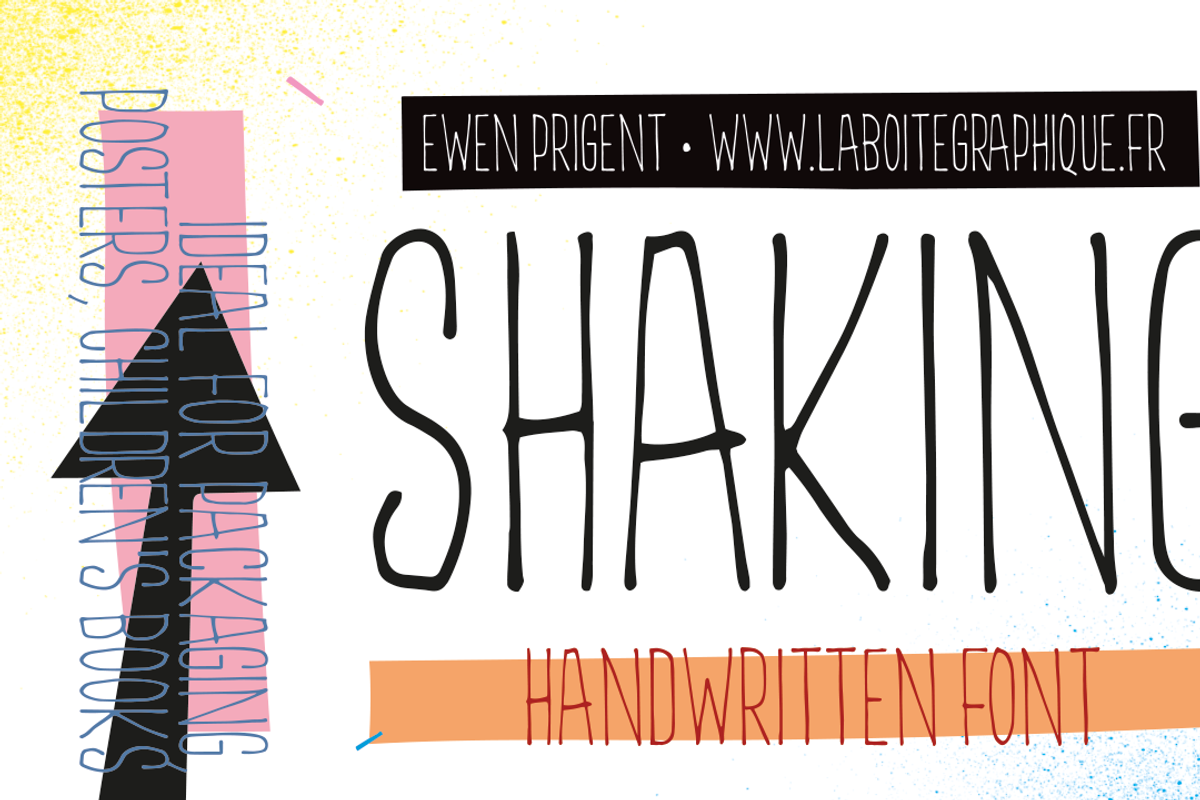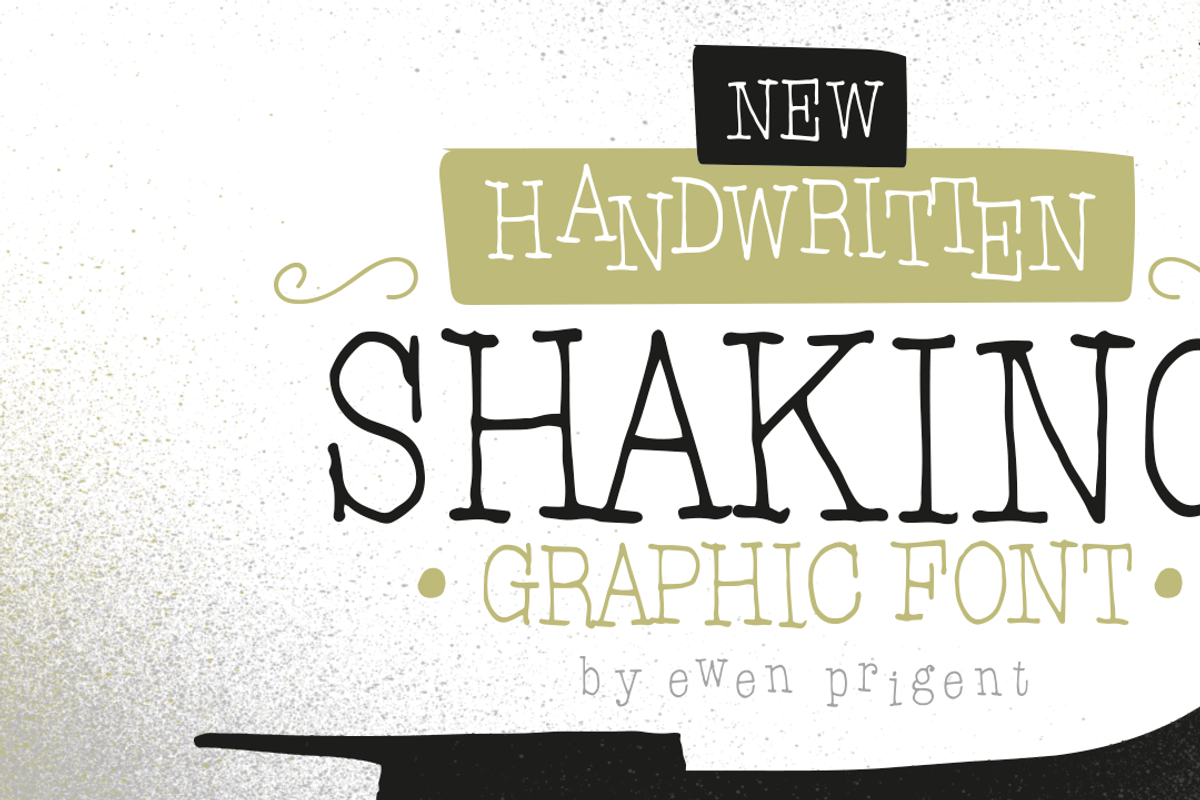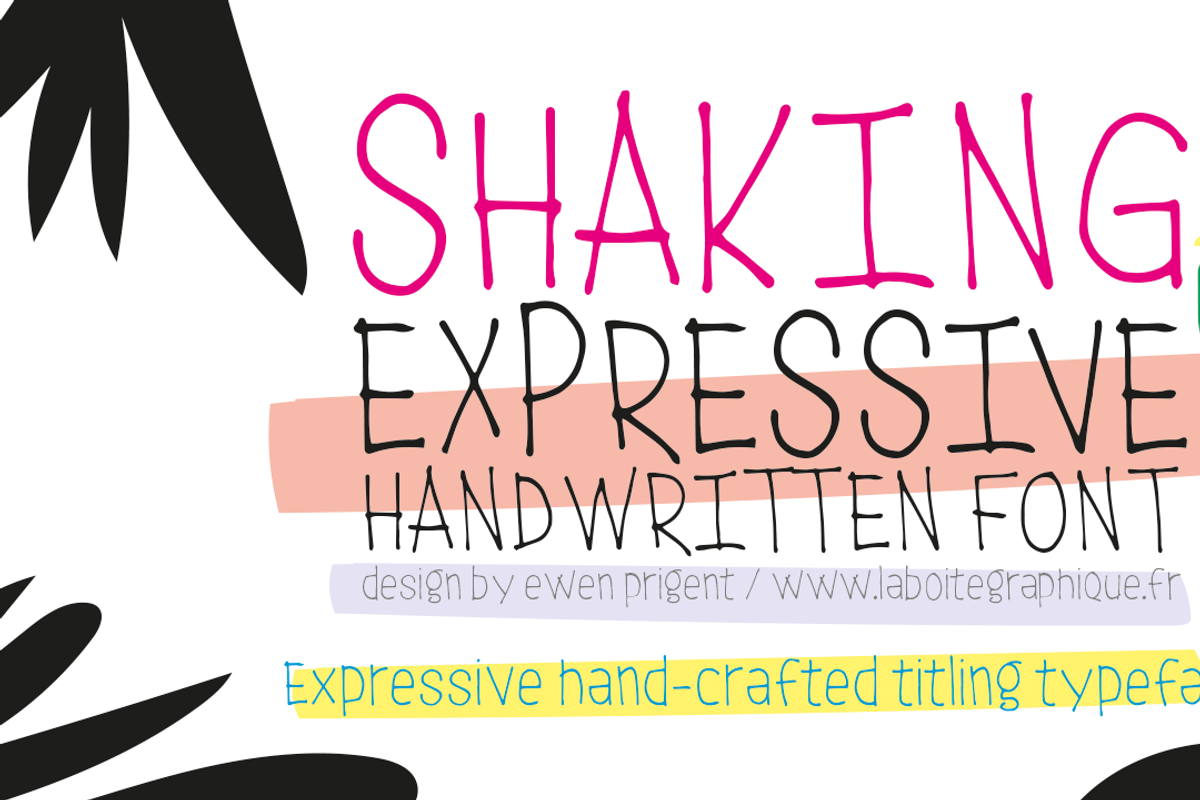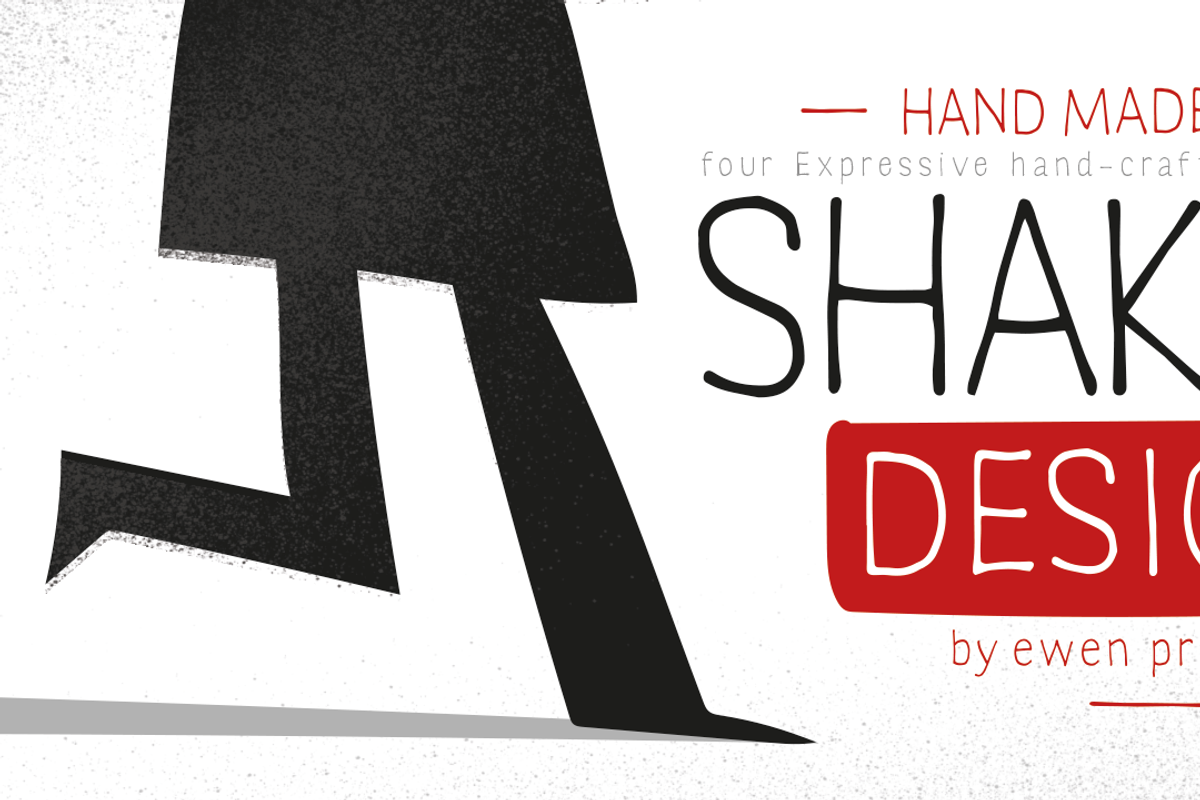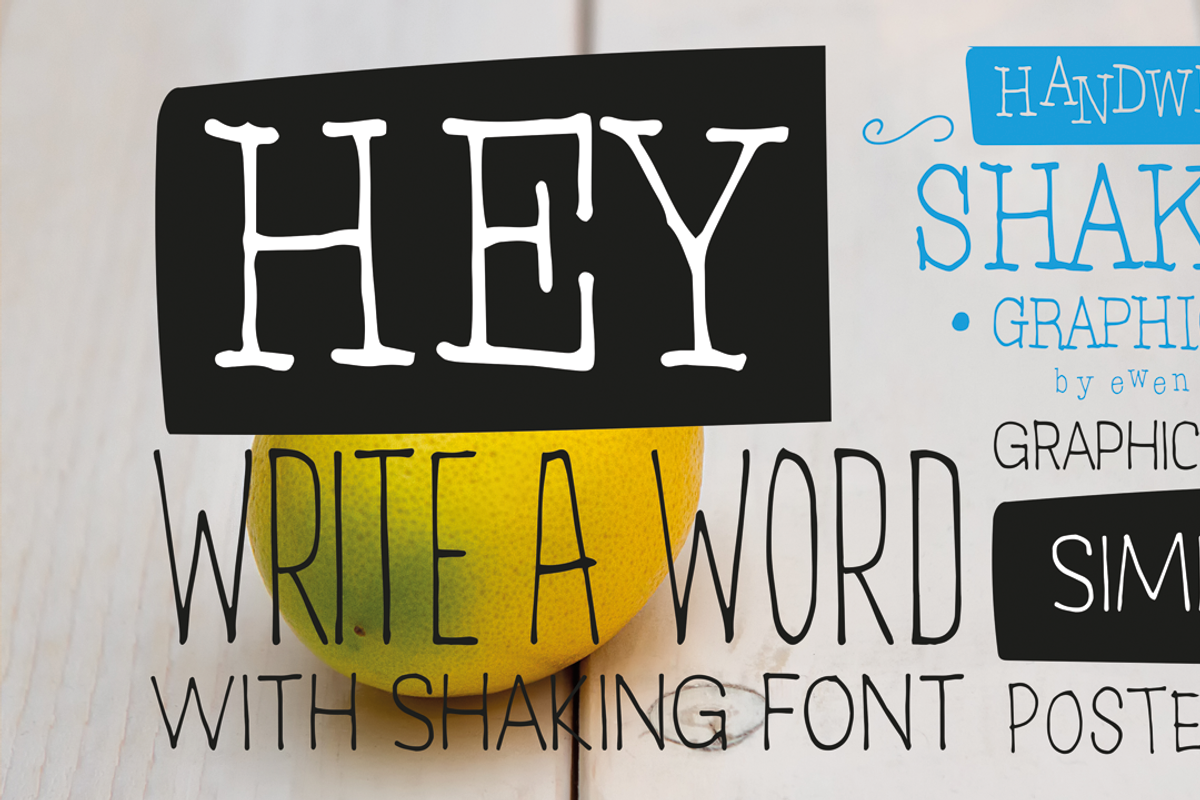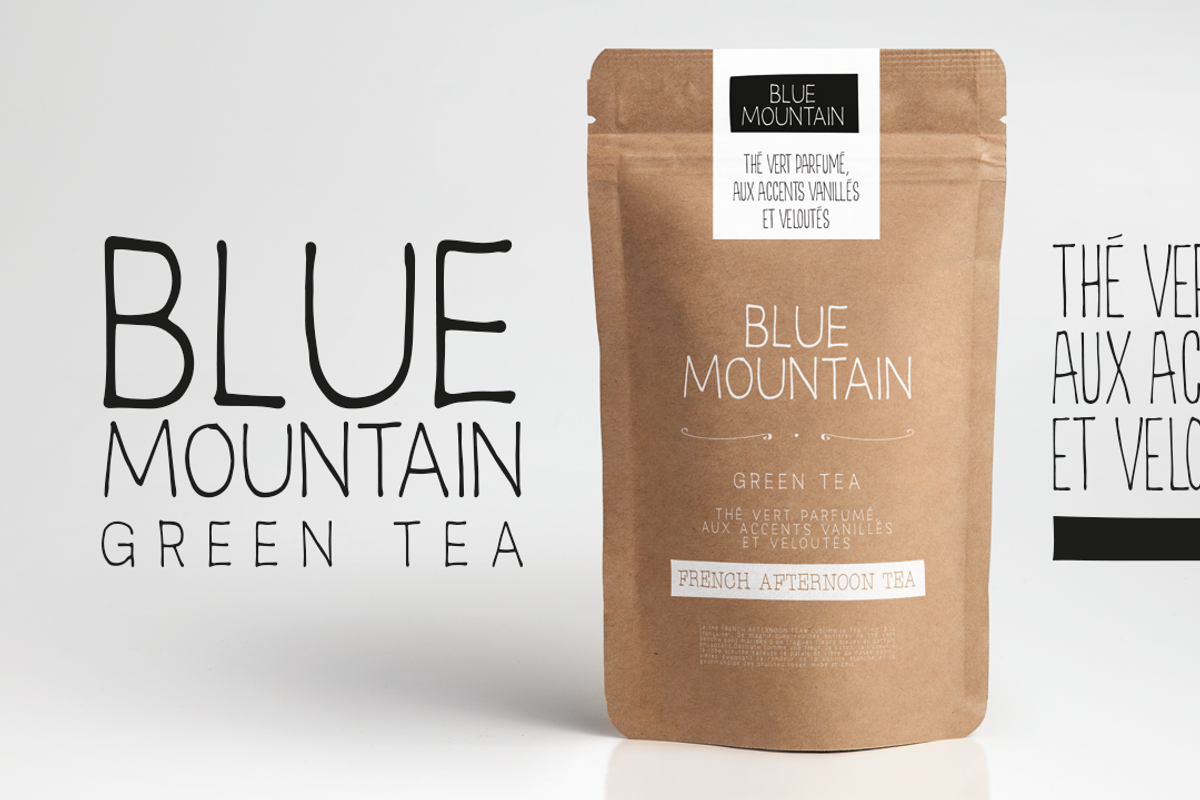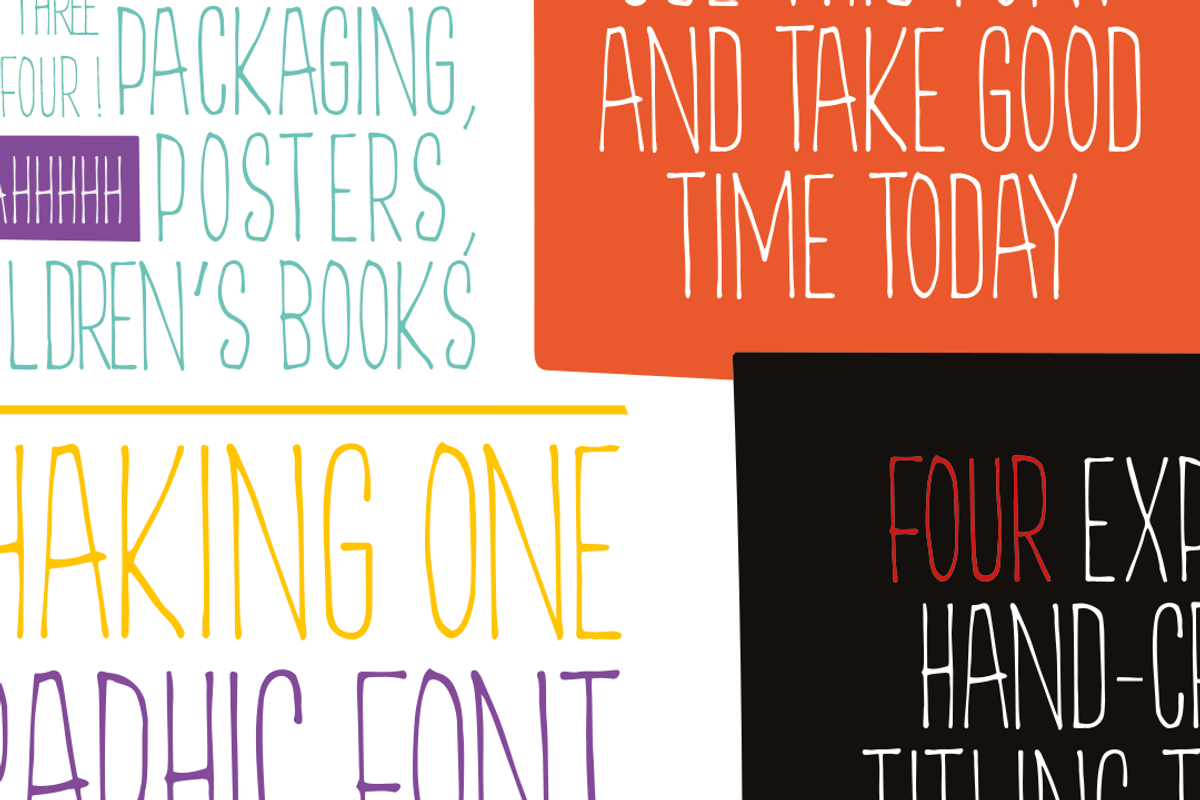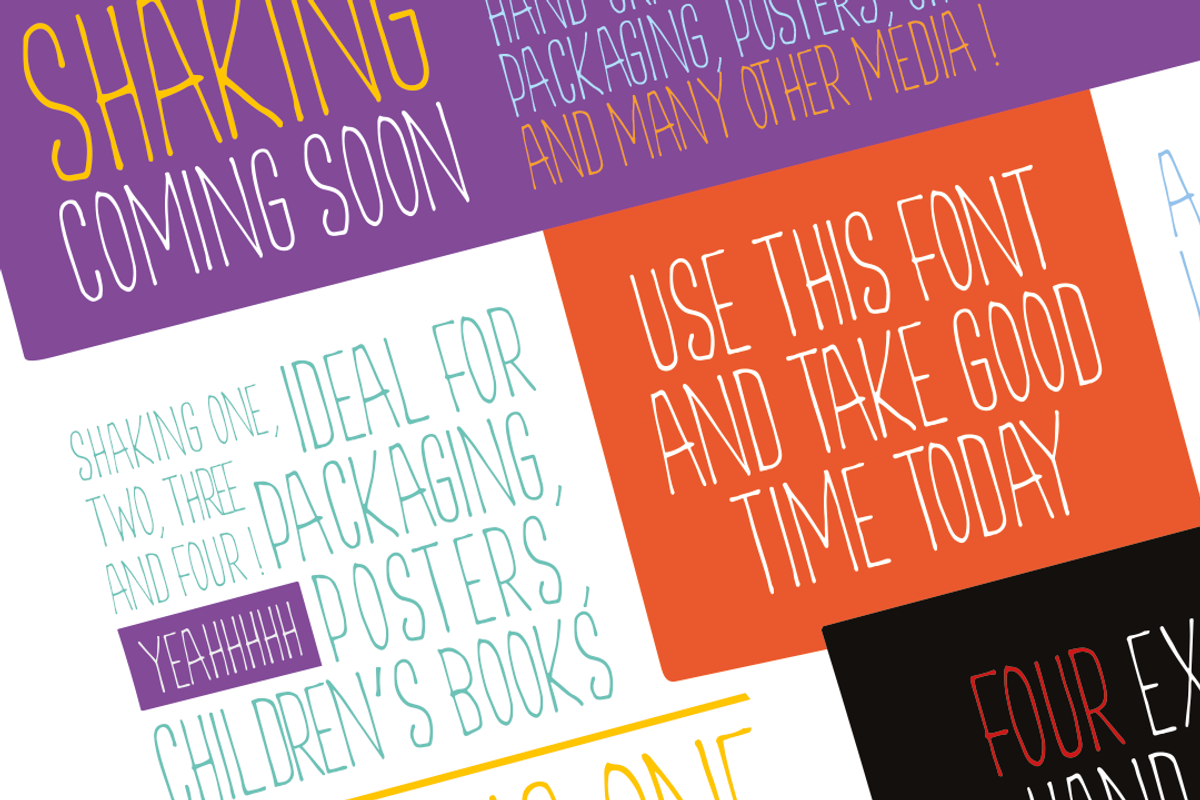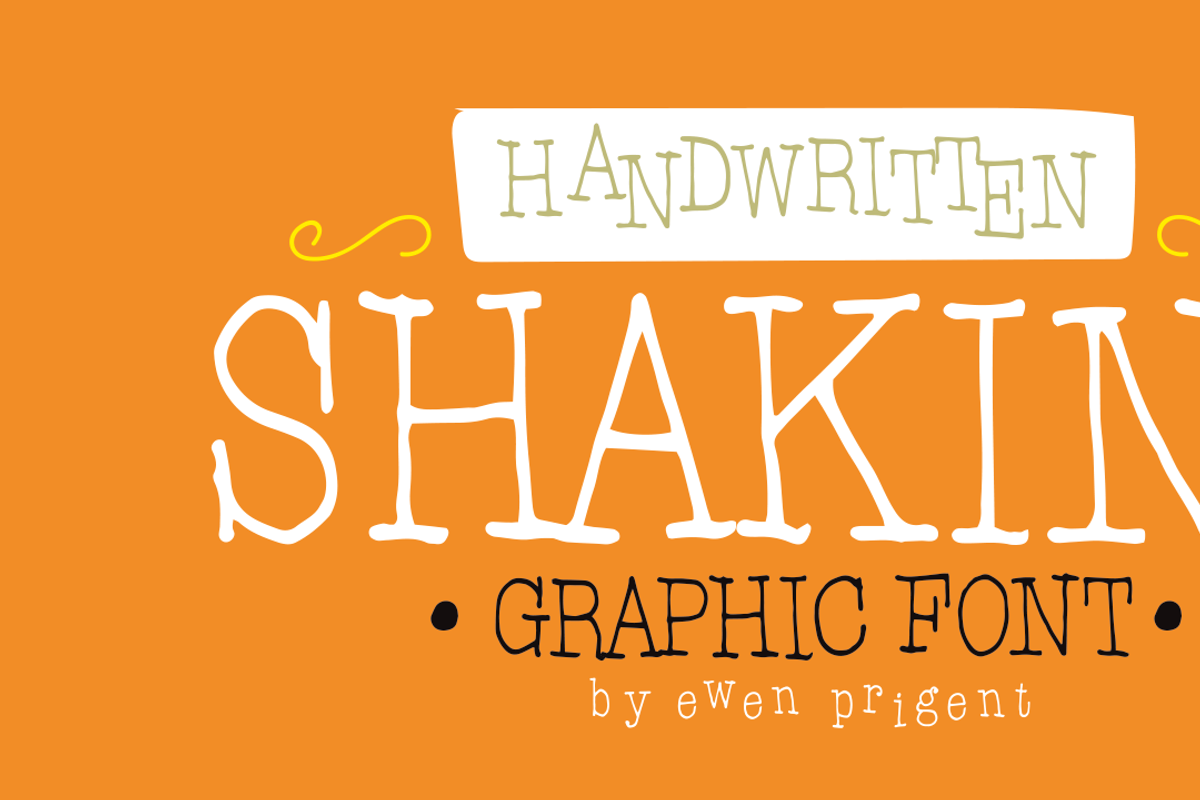
Shaking package
Design by Ewen Prigent, Shaking is a set of four Expressive hand-crafted titling typeface ideal for packaging, posters, children's books… and many other media ! Shaking one, two, three and four !